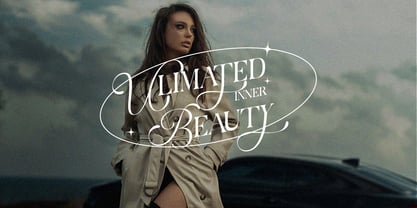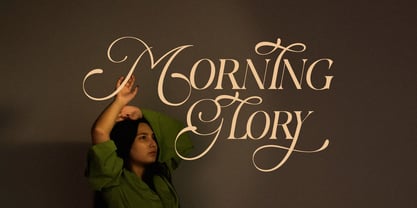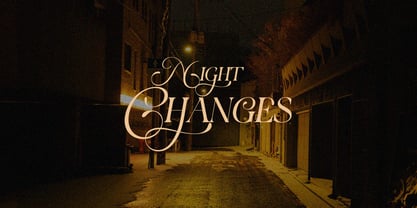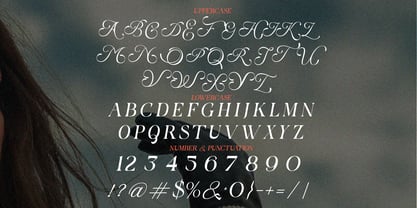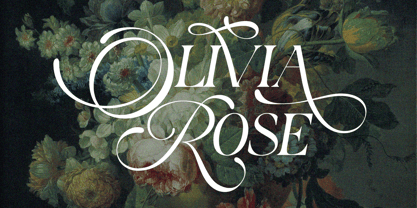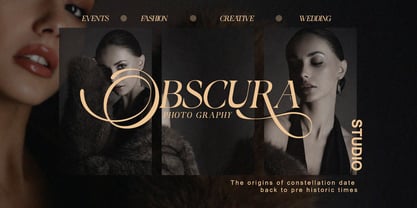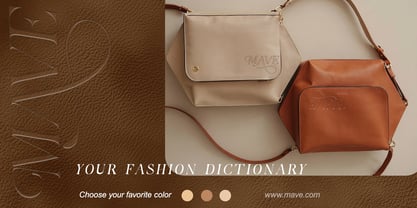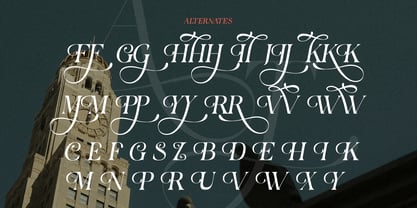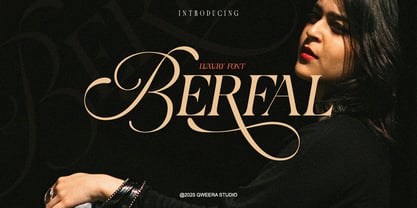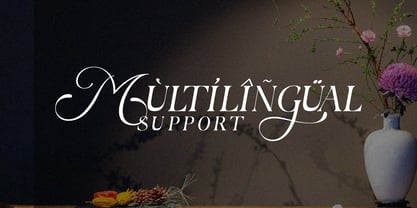
Berfal
by Qweera Studio
The Berfal Font Family was designed by Idhham Cholid Rikzano Yahya and published by Qweera Studio. Berfal contains 1 styles.
Berfal - Elegant Luxury Serif Font for Premium Branding Berfal is a sophisticated serif typeface that exudes refined elegance and timeless luxury. Featuring exquisite alternates and stylish ligatures, this font is meticulously crafted for high-end branding, luxury logos, premium packaging, and editorial designs that demand both beauty and prestige. Where Timeless Elegance Meets Modern Sophistication With its graceful serifs and balanced proportions, Berfal delivers exceptional versatility for brands seeking both refinement and impact. The carefully designed alternates and ligatures enable seamless typographic harmony, perfect for creating distinctive visual identities with a touch of class. Premium Features Include: Luxury Serif Design – Exquisite letterforms with refined details Stylish Alternates – 20+ elegant character variations Sophisticated Ligatures – Flawless letter connections Universal Compatibility – From business cards to billboards Extended Latin Support – Comprehensive character set Elevate Your Brand with Berfal's Unmatched Elegance Ideal for: Luxury fashion branding High-end cosmetic packaging Premium editorial layouts Elegant logo creation Sophisticated stationery design Available Now – Experience Berfal's Luxurious Appeal!
Berfal